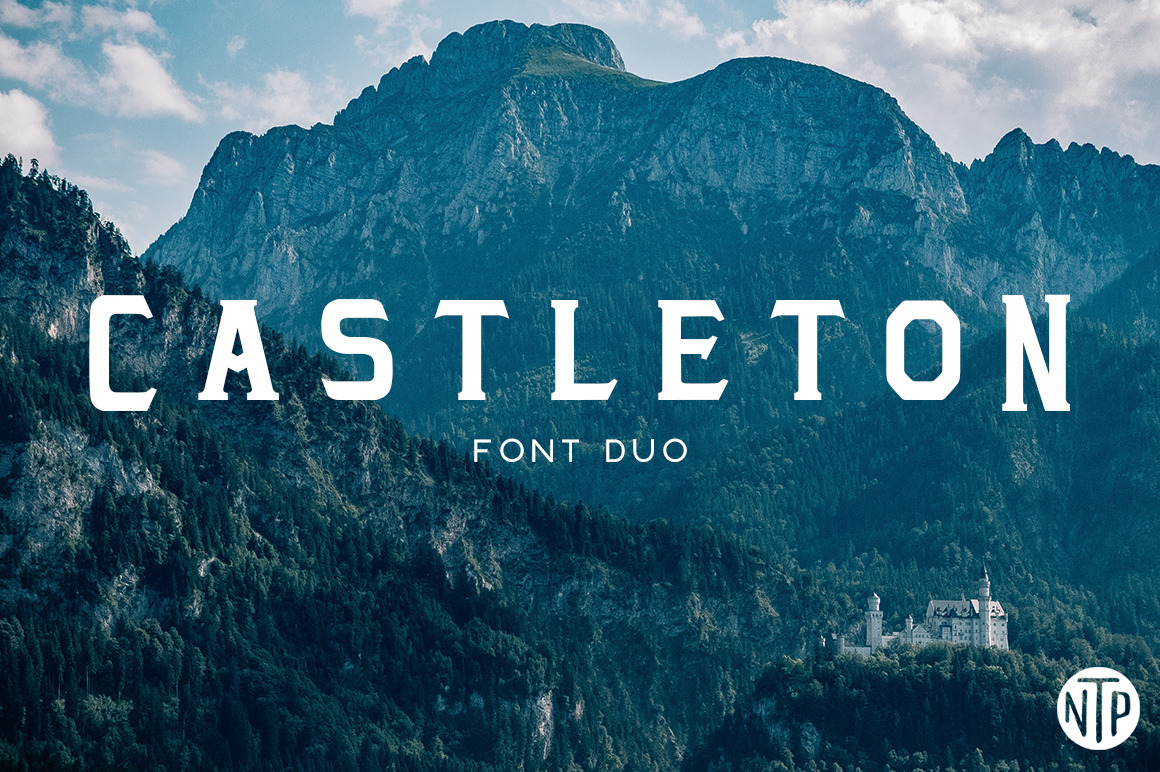
Castleton Font Duo
A versatile complimentary font duo. These two typefaces are the perfect match, well suited for professional clients, commercial and personal projects.
The Castleton Regular is a purposeful and clean serif, cinematic in feel that flirts closely on the border of a slab serif. The Castleton Sans has a light and refreshing charm, strong in shape and lines but carries a slightly more elegant undertone.